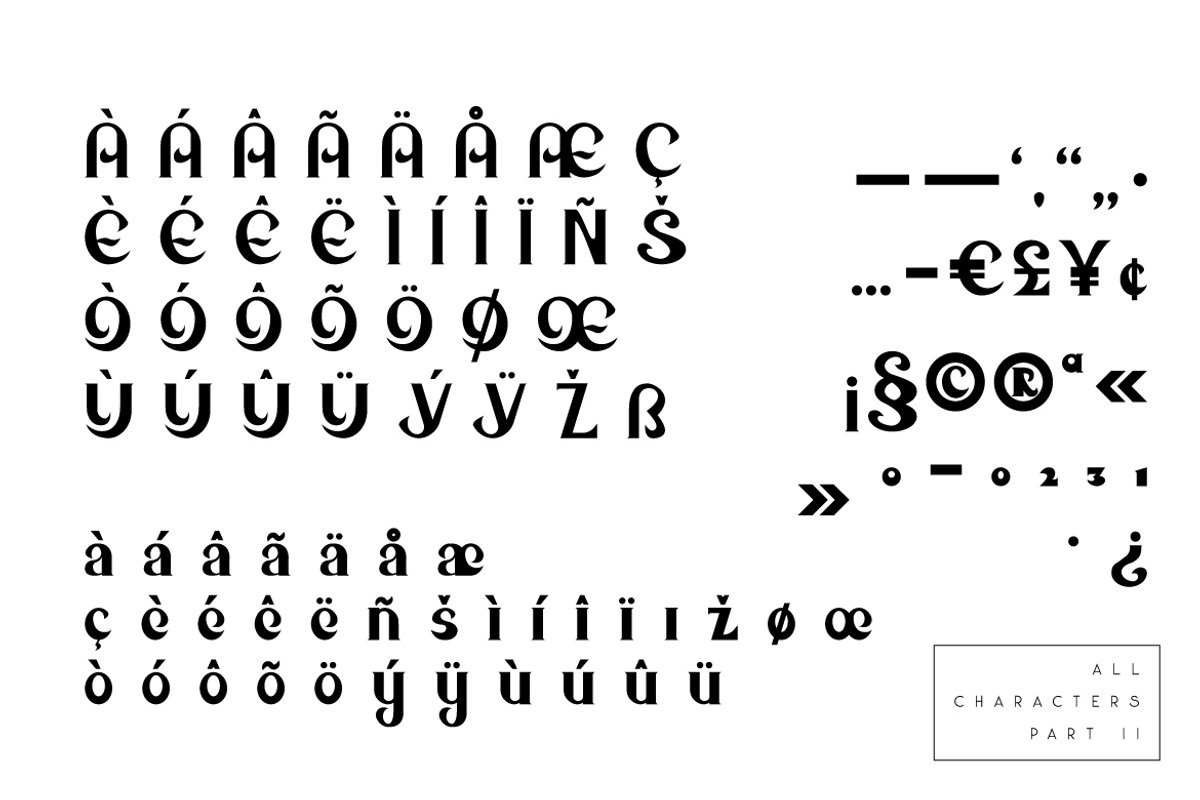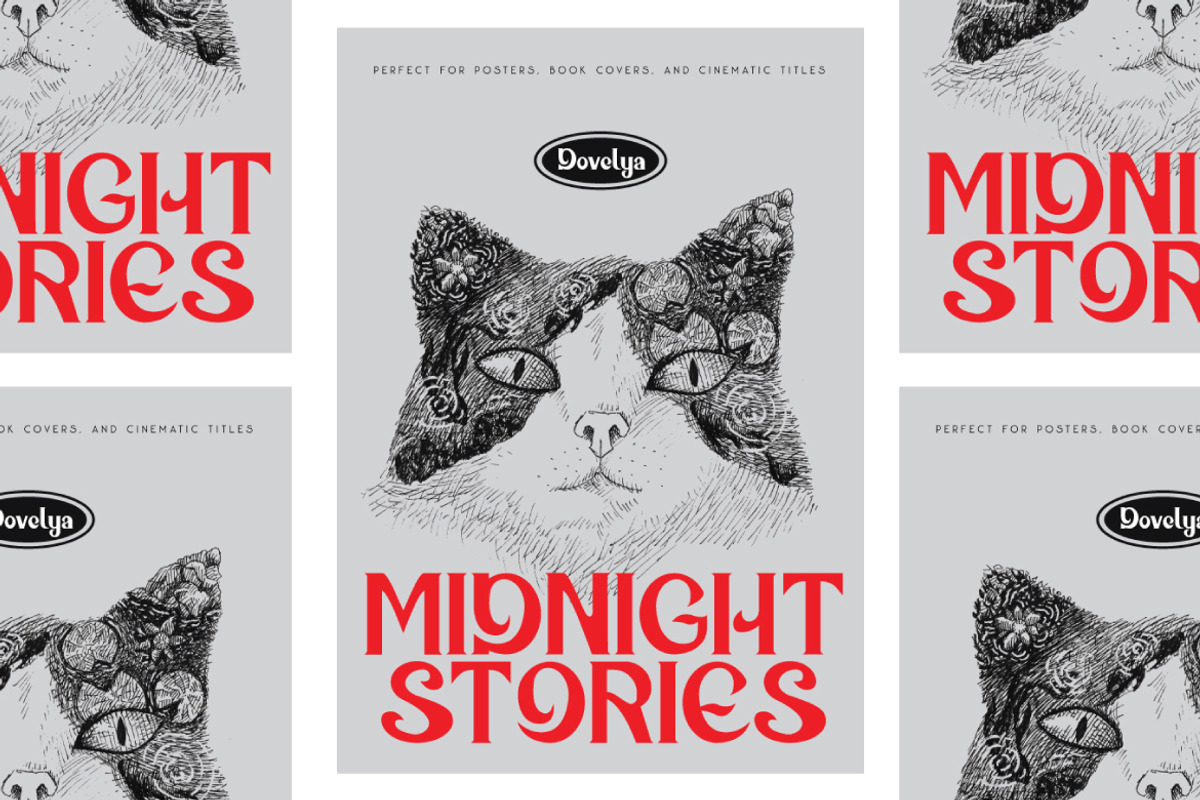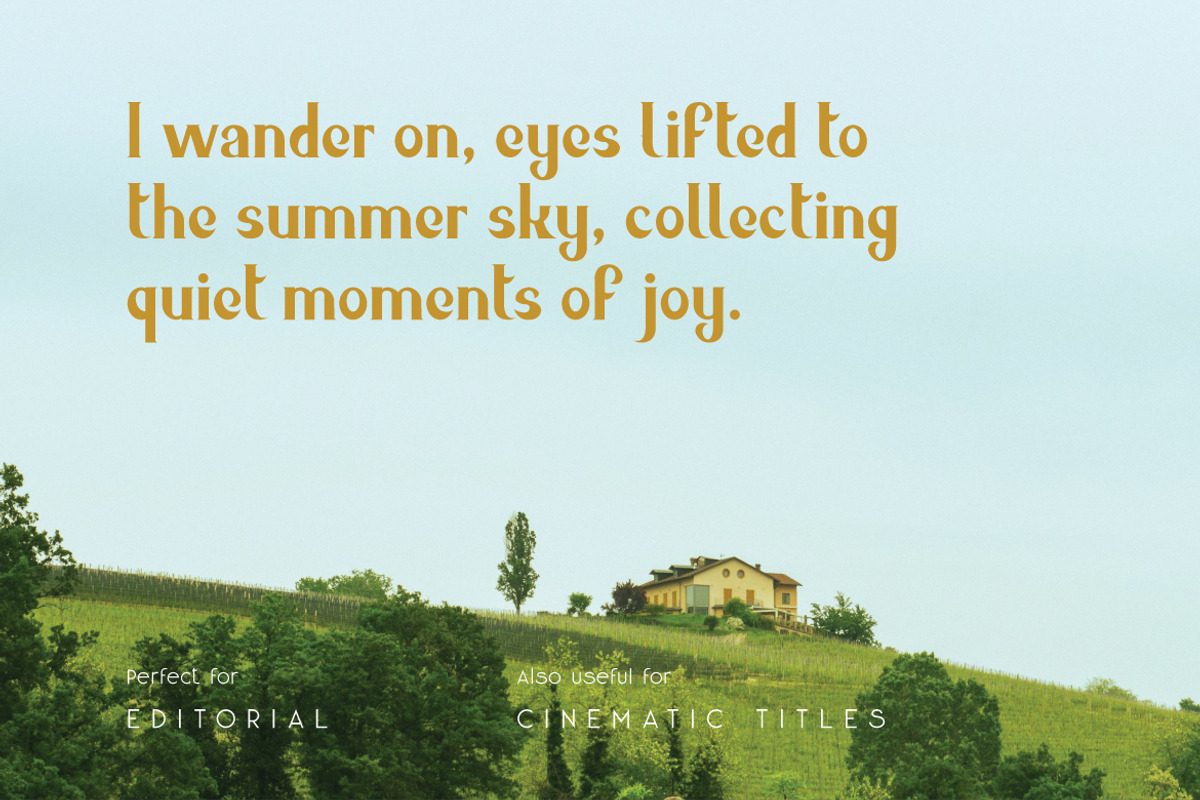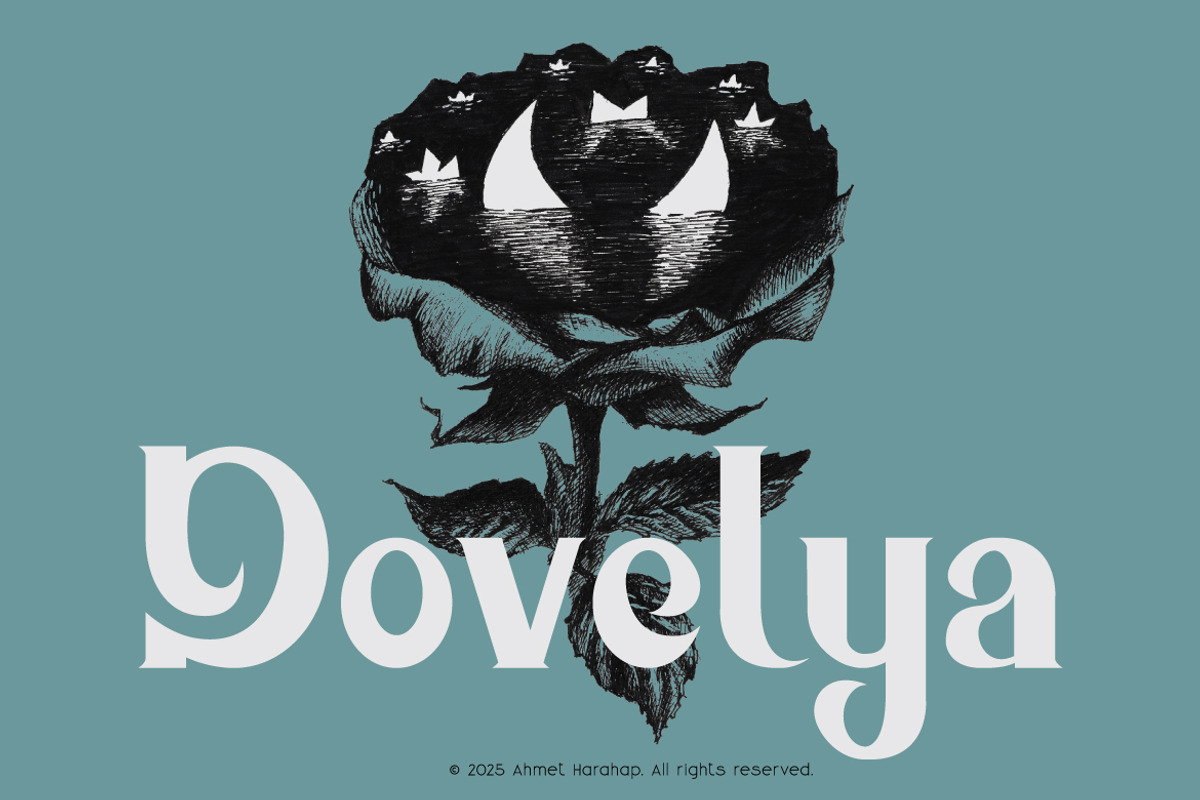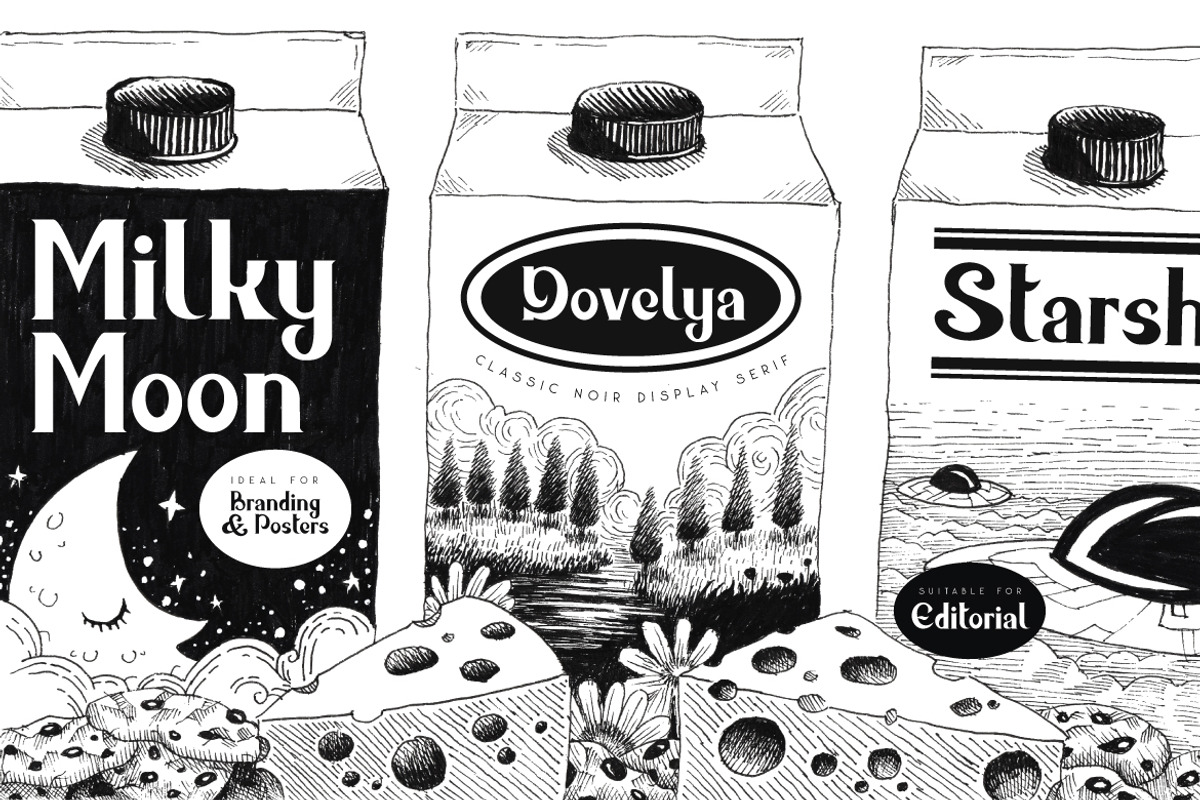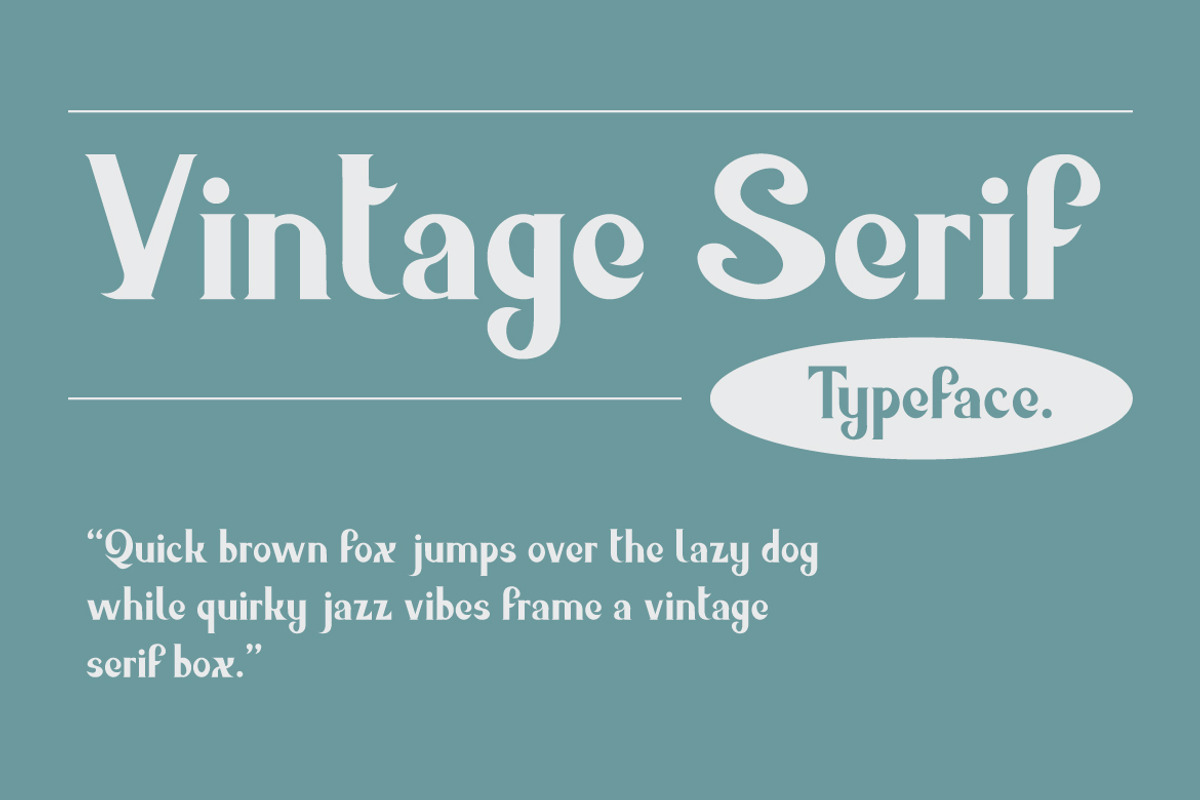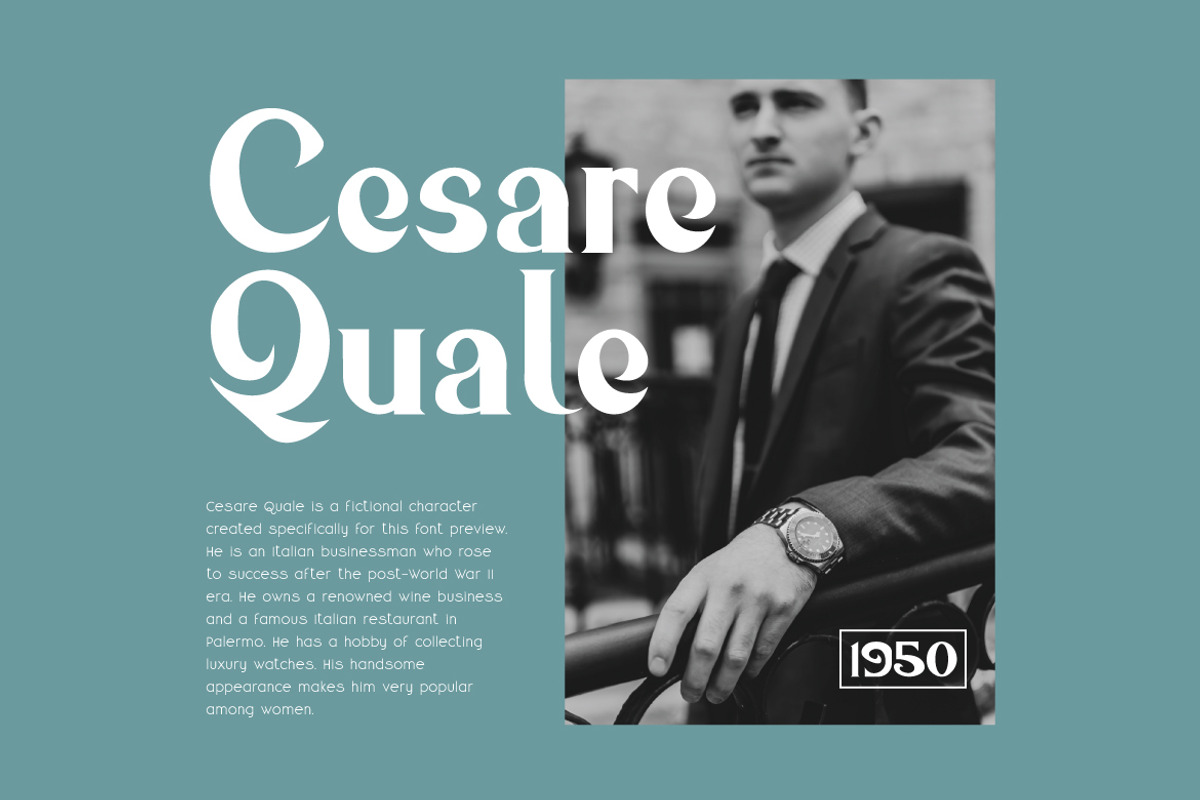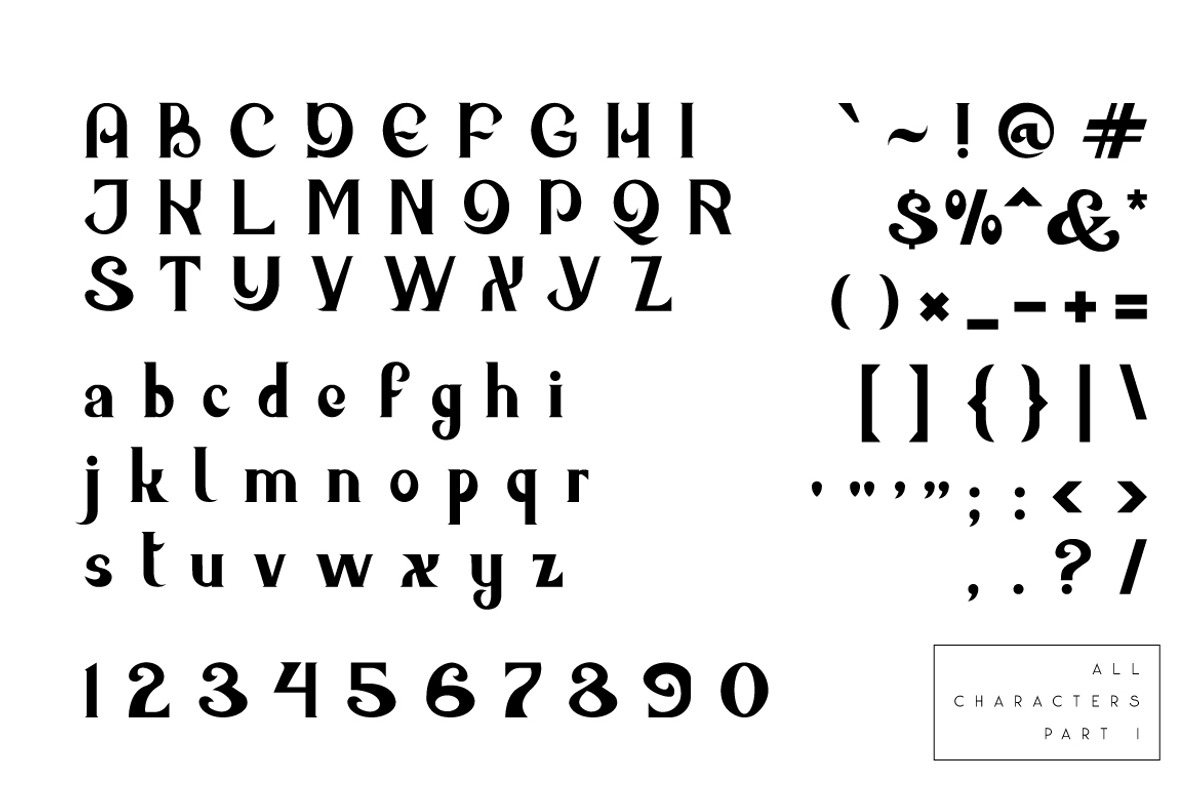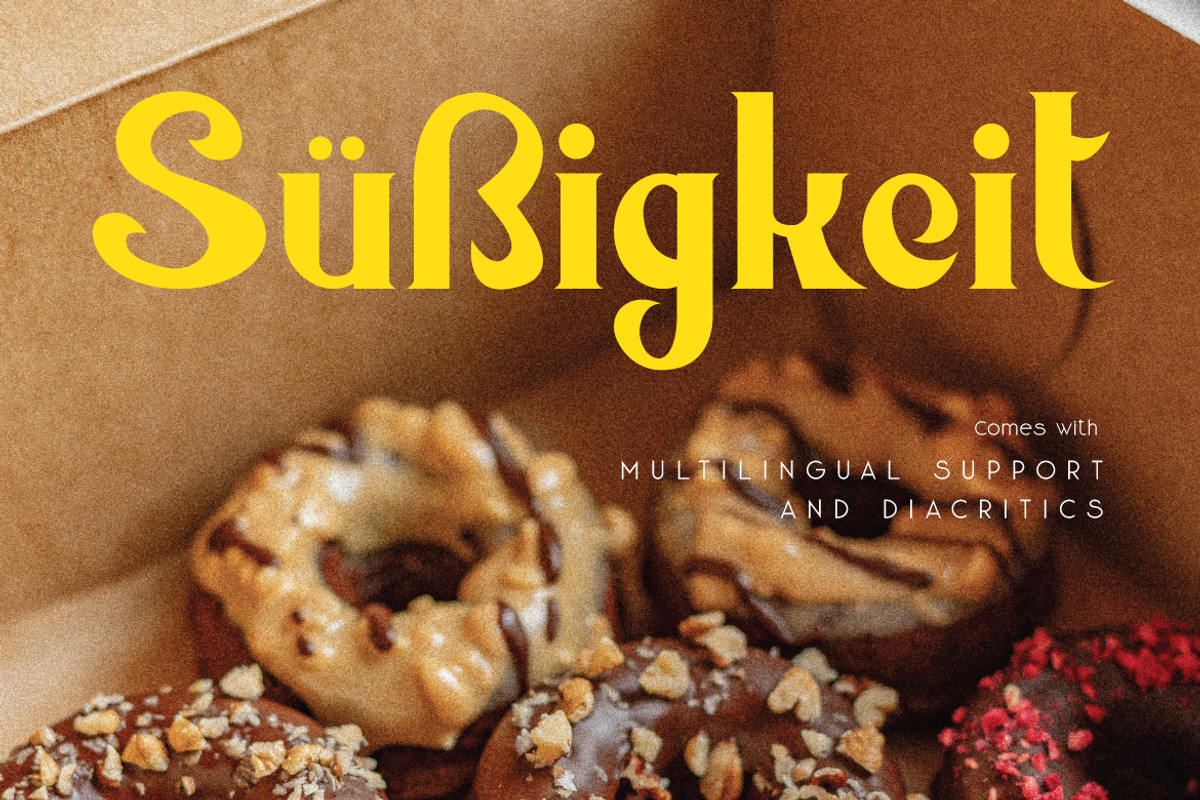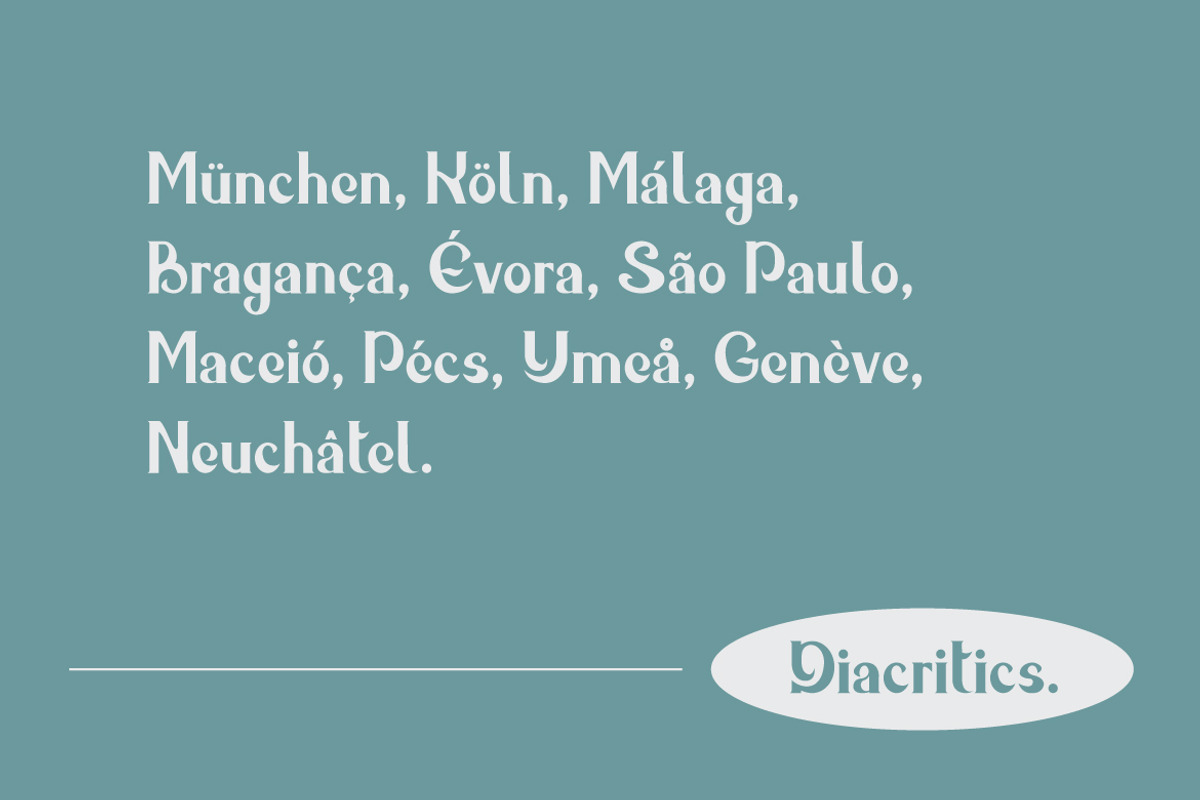
Dovelya - Vintage Display Serif
Dovelya is a classic noir display serif font designed to bring elegance, drama, and timeless character to your projects. With its refined letterforms and vintage-inspired details, Dovelya is perfect for bold headlines and expressive typography.
This font works beautifully for logos, branding, editorial layouts, posters, book covers, fashion designs, and cinematic titles. Its classic serif structure combined with a subtle noir atmosphere makes it ideal for luxury, vintage, and dark-themed designs.
Best used for:
Logo & brand identity
Editorial & magazine headlines
Posters & book covers
Film titles & cinematic designs
Luxury, vintage, and noir-style projects
Dovelya adds a strong visual presence while maintaining elegance and readability in display use.